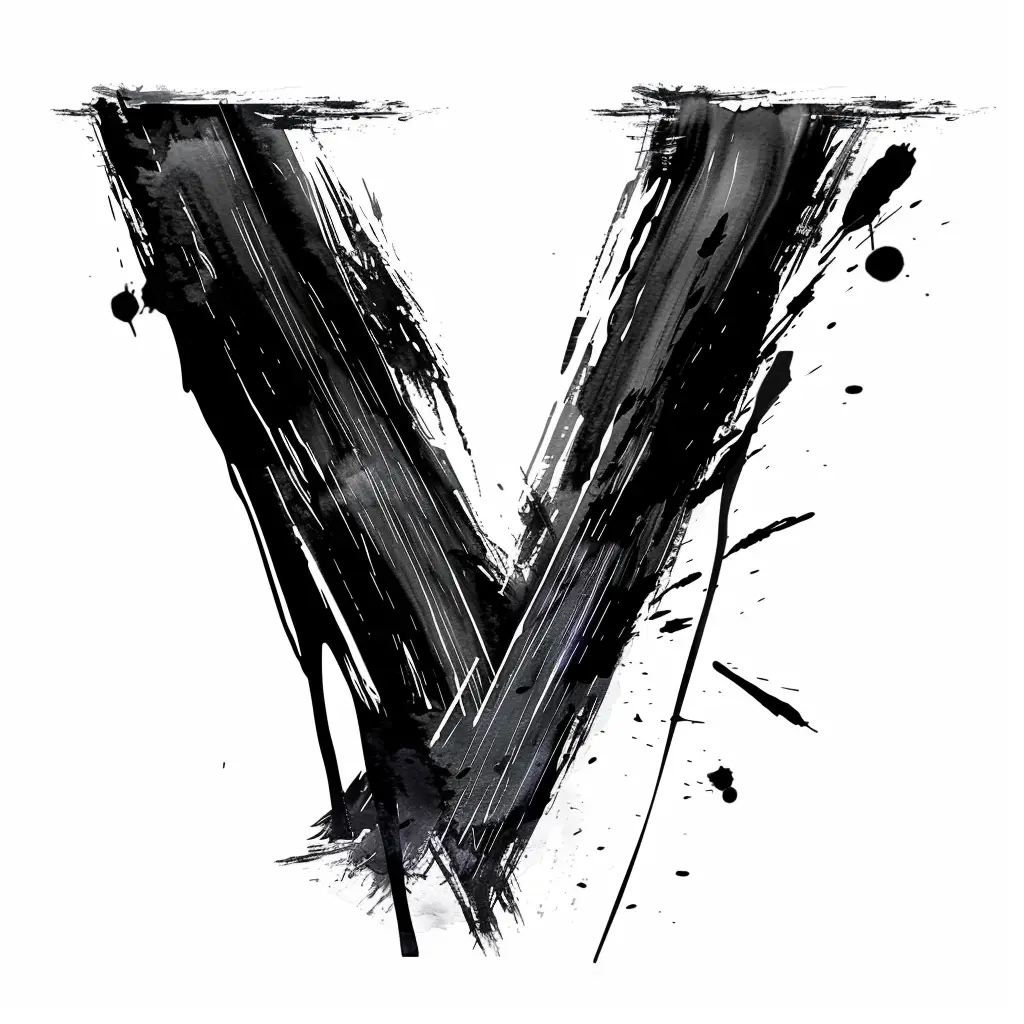
The image features a bold, stylized letter "V" rendered in black ink with a dynamic, brushstroke effect. The design incorporates splatters, drips, and textured strokes, creating a raw, artistic aesthetic against a plain white background. The monochromatic color scheme emphasizes the contrast between the dark, expressive letter and the clean backdrop.